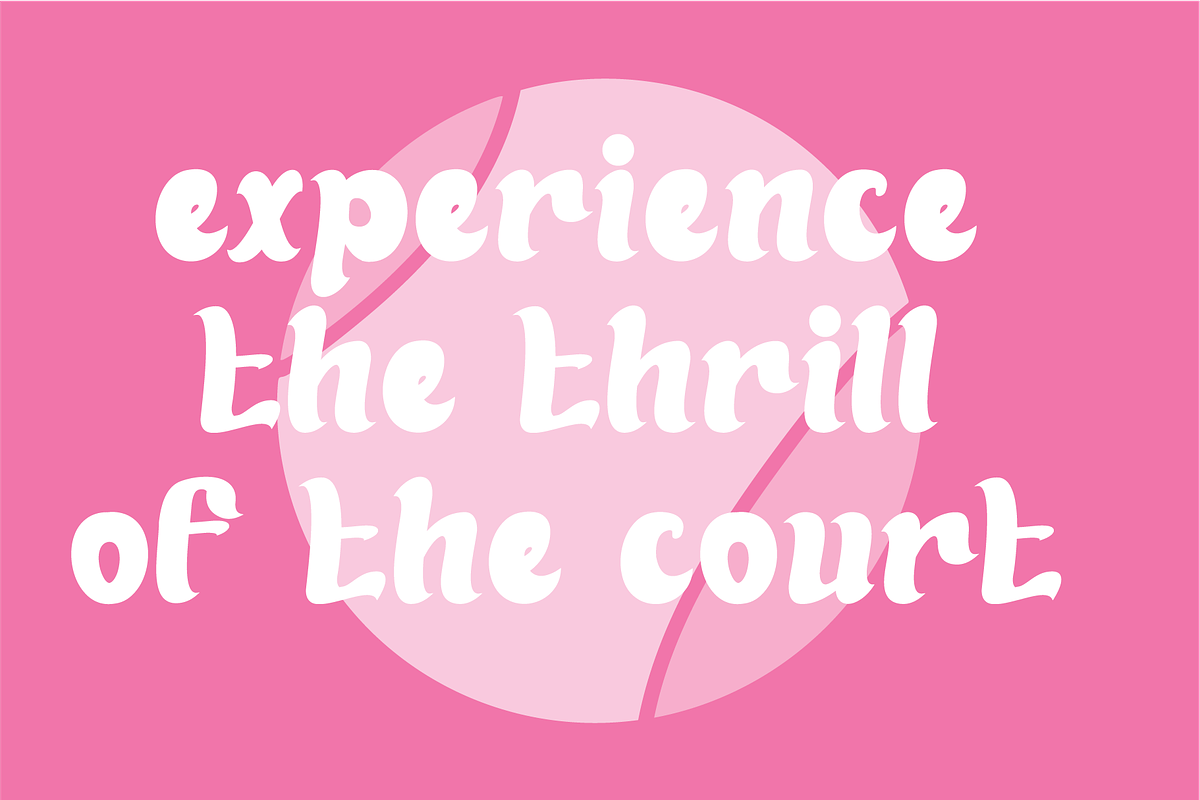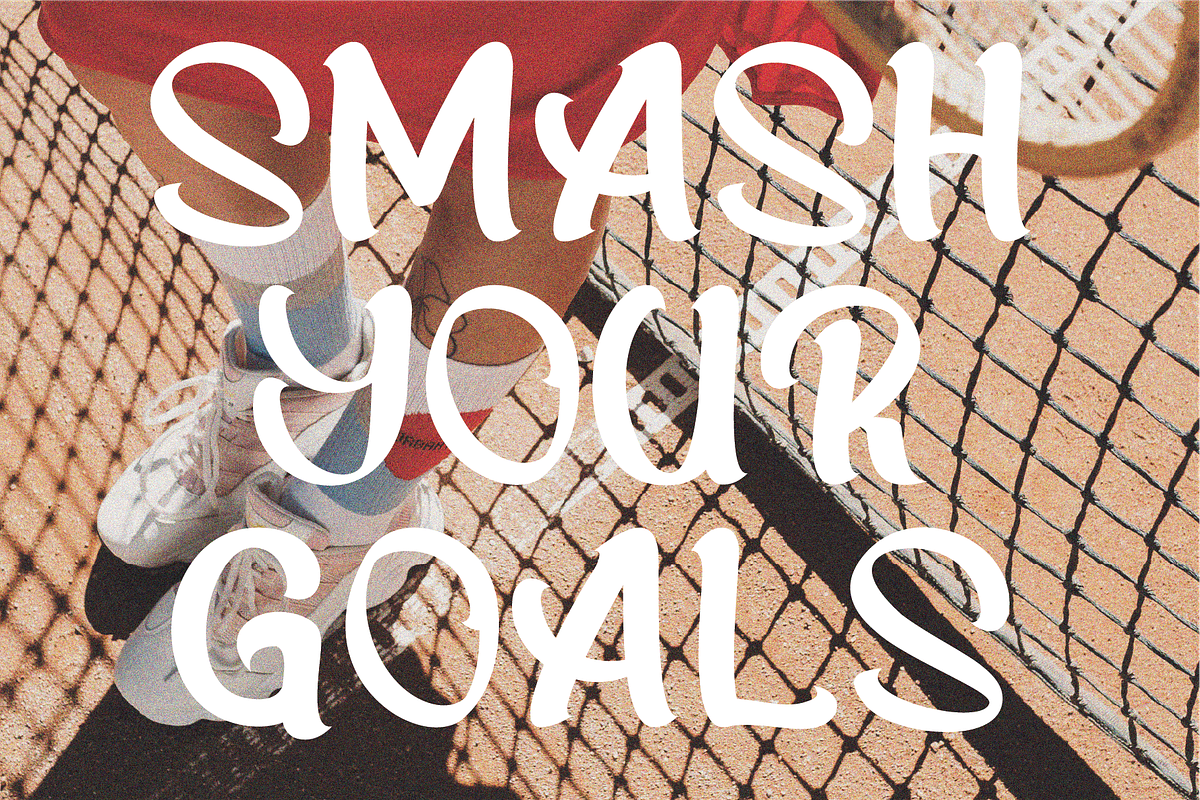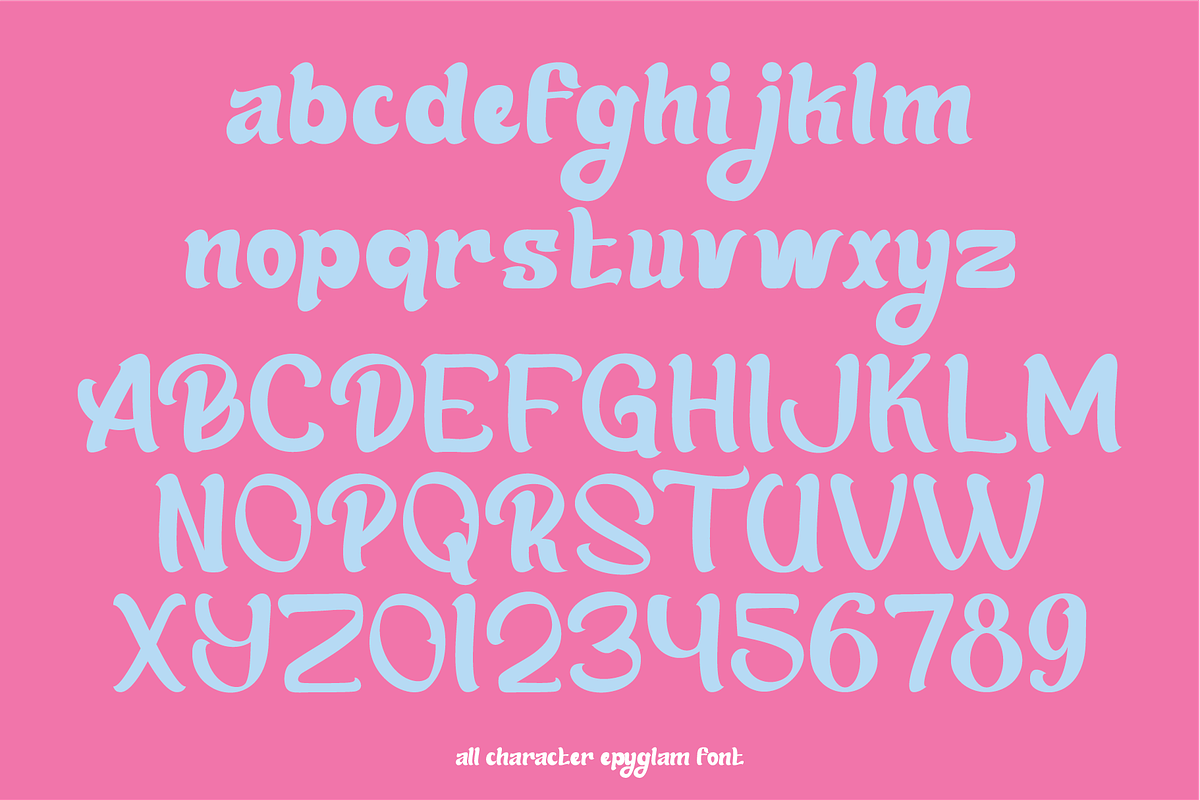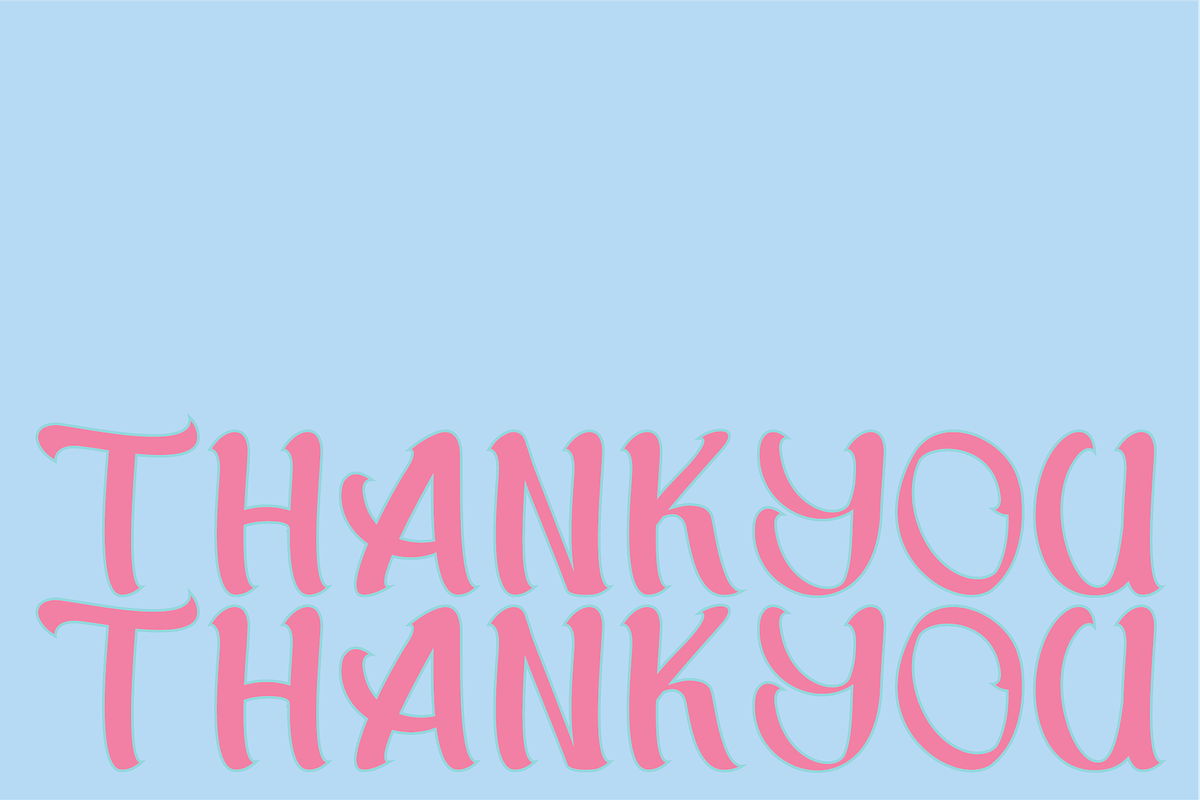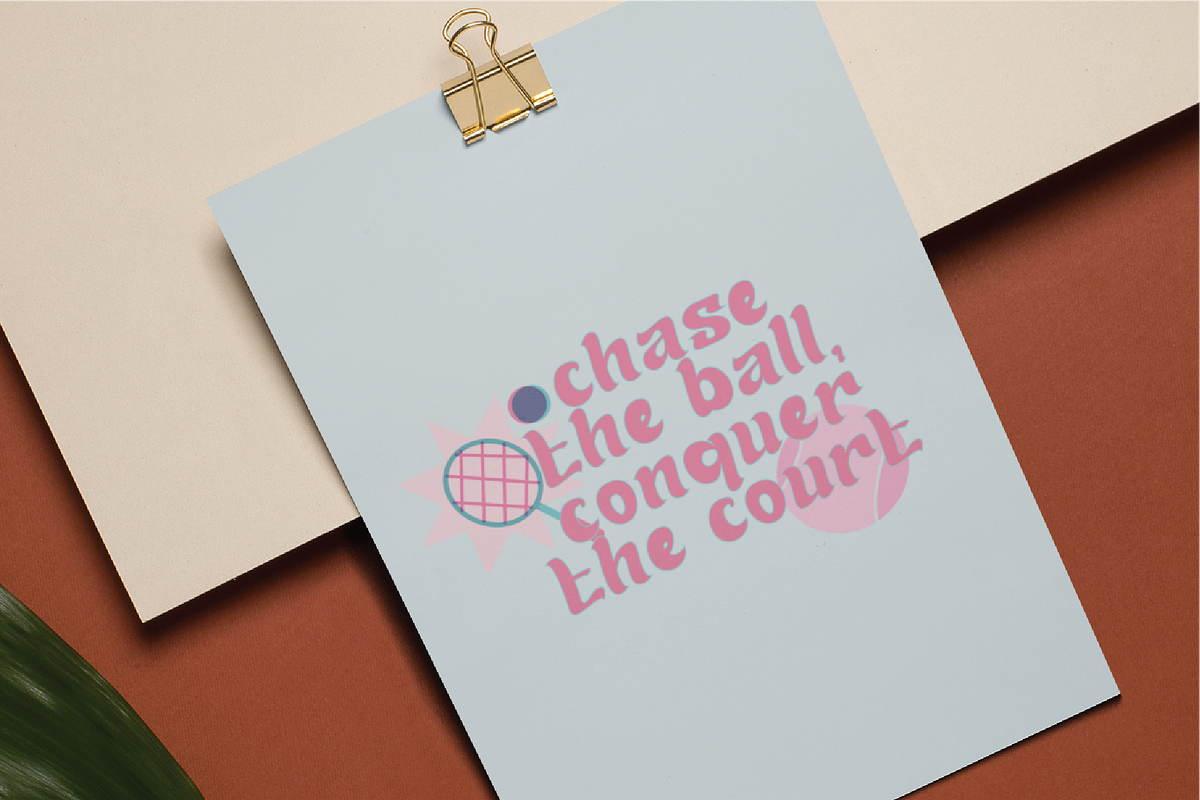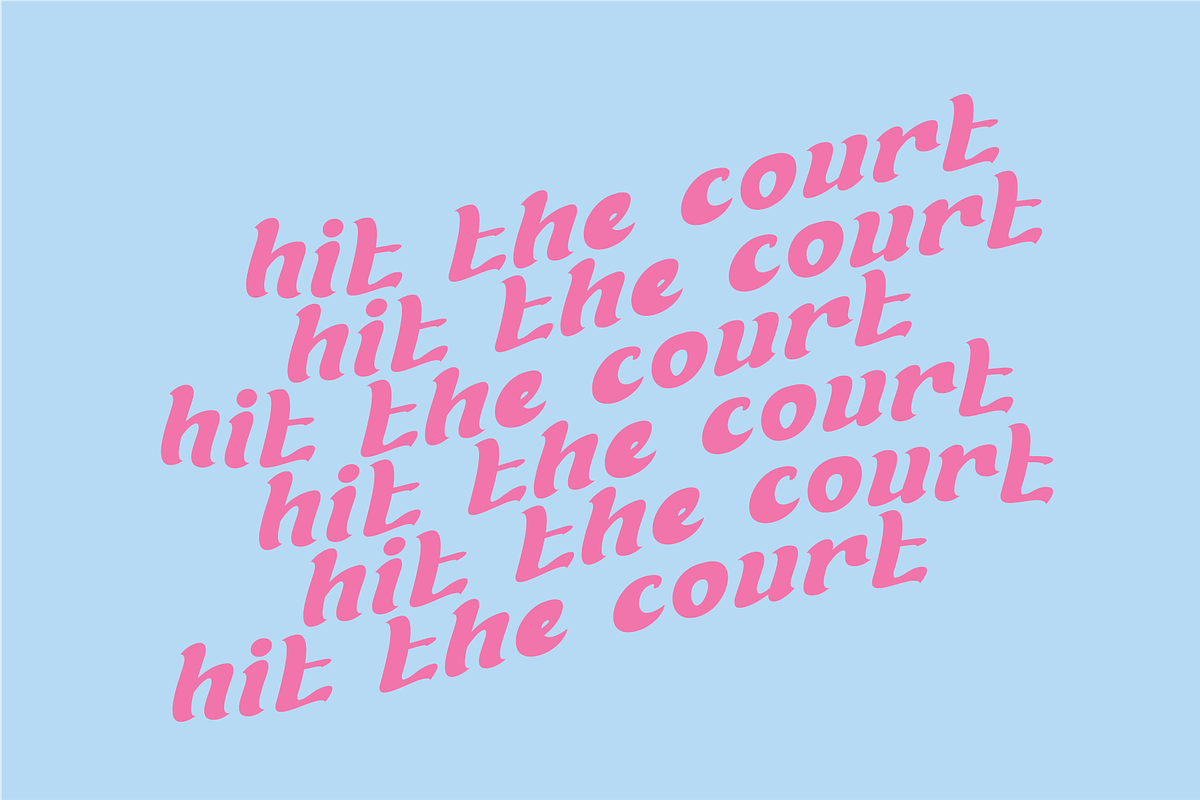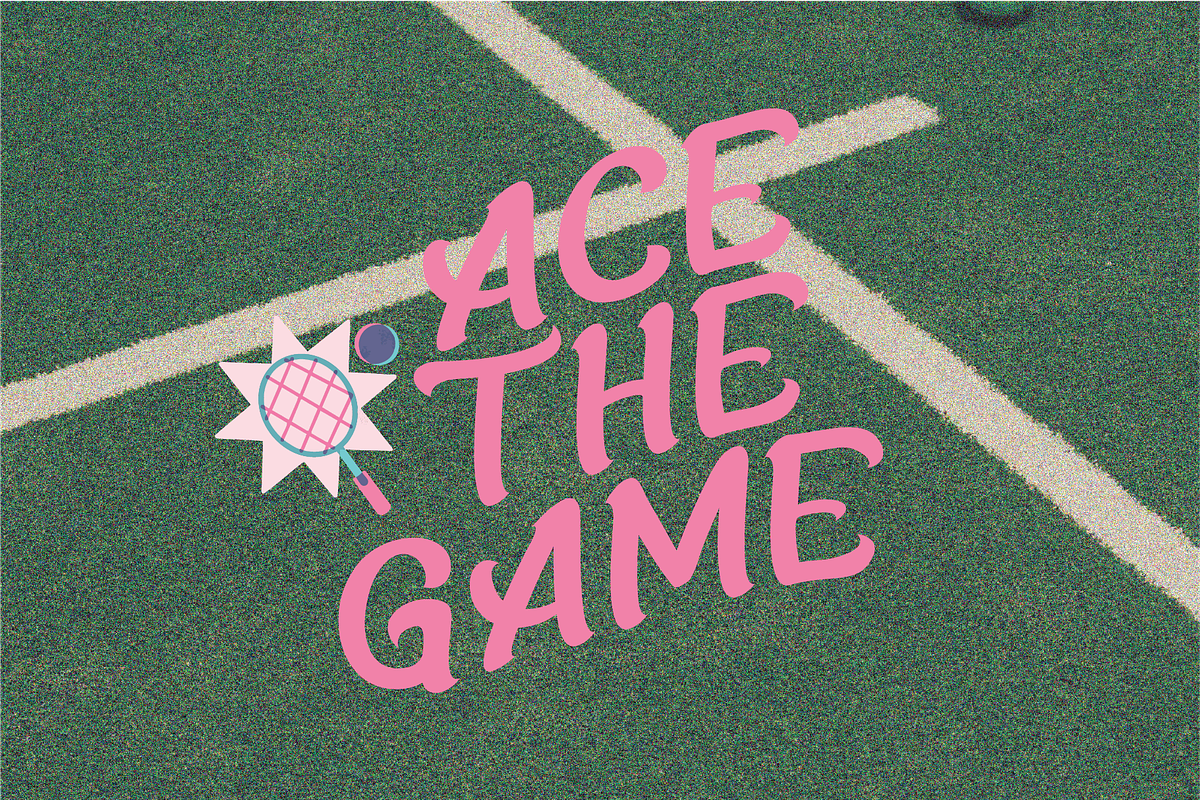
Epyglam Playful Font
Epyglamis a bold brush script font with a confident, stylish rhythm and expressive stroke contrast. Its smooth curves and hand-painted texture give it a dynamic, fashionable feel—perfect for designs that want to be eye-catching, modern, and full of personality.